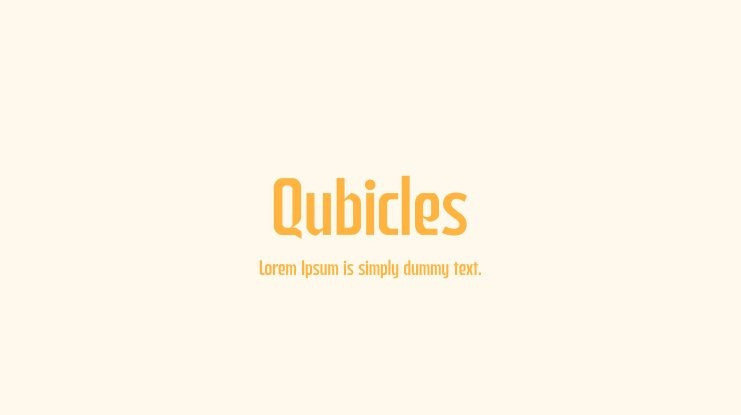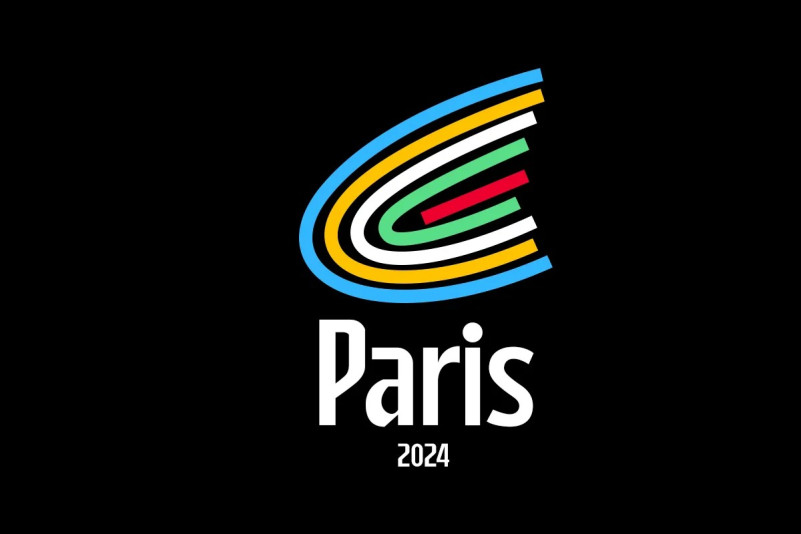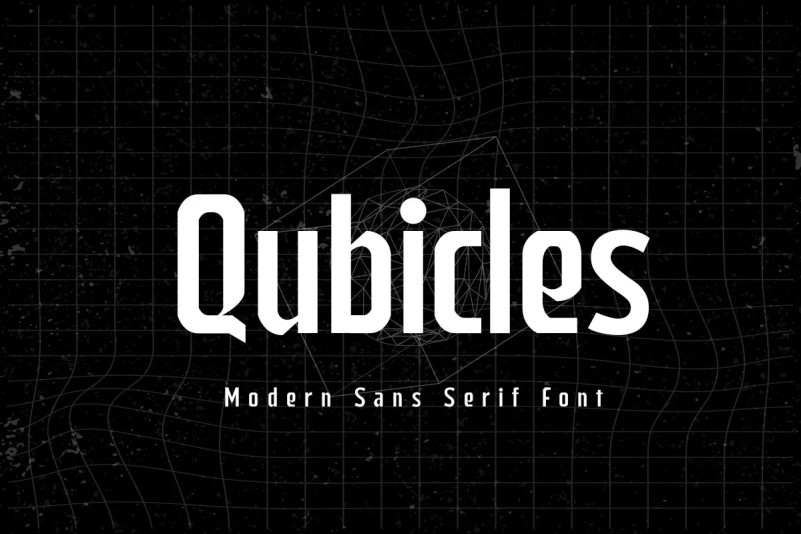
Qubicles Font
Qubicles Font, is a sans serif  stunning when combined or separately. This sans serif font style is legible and stunningly designed. It can easily be matched to an incredibly large set of projects, so add it to your creative ideas and notice how it makes them stand out!